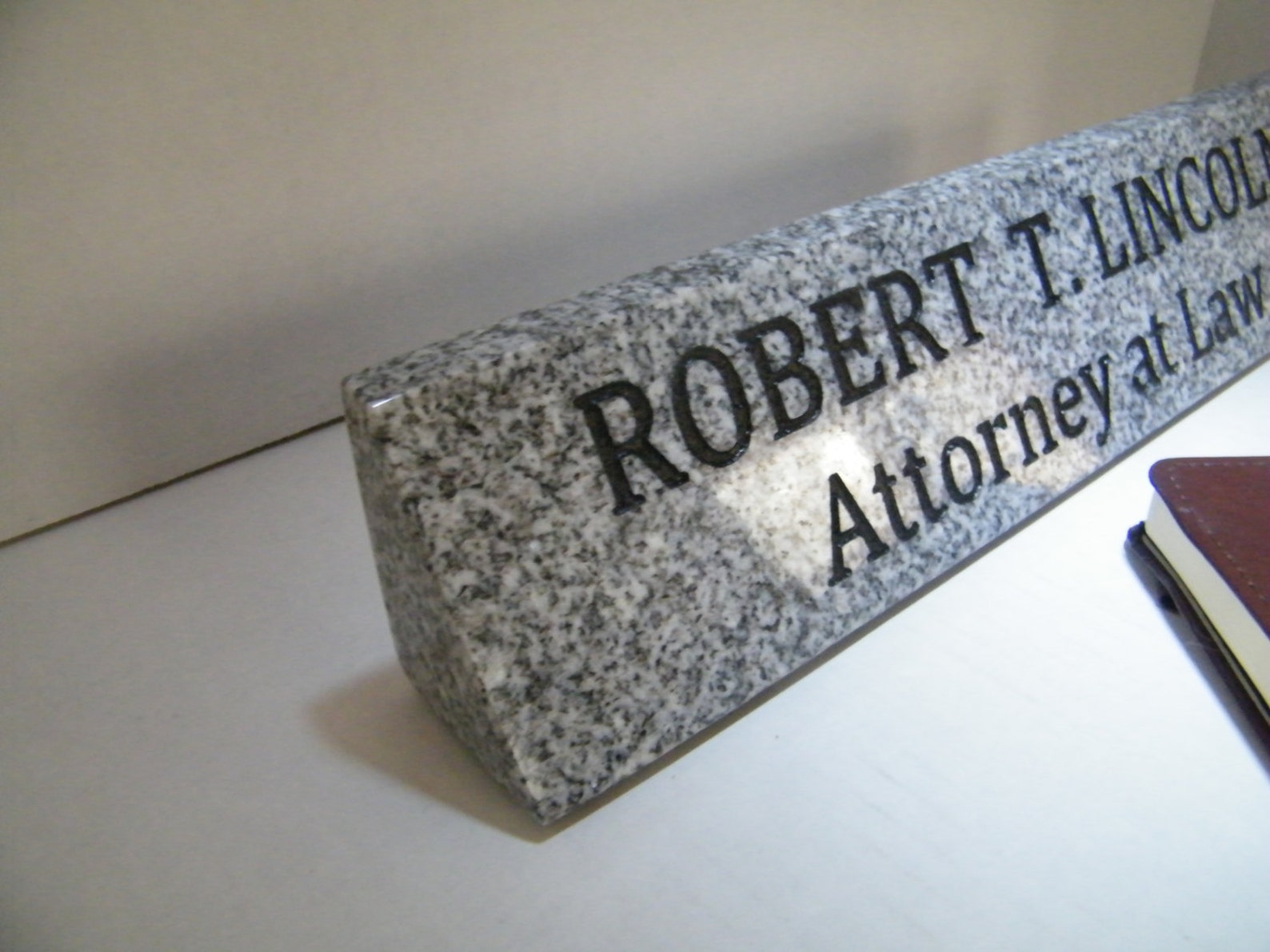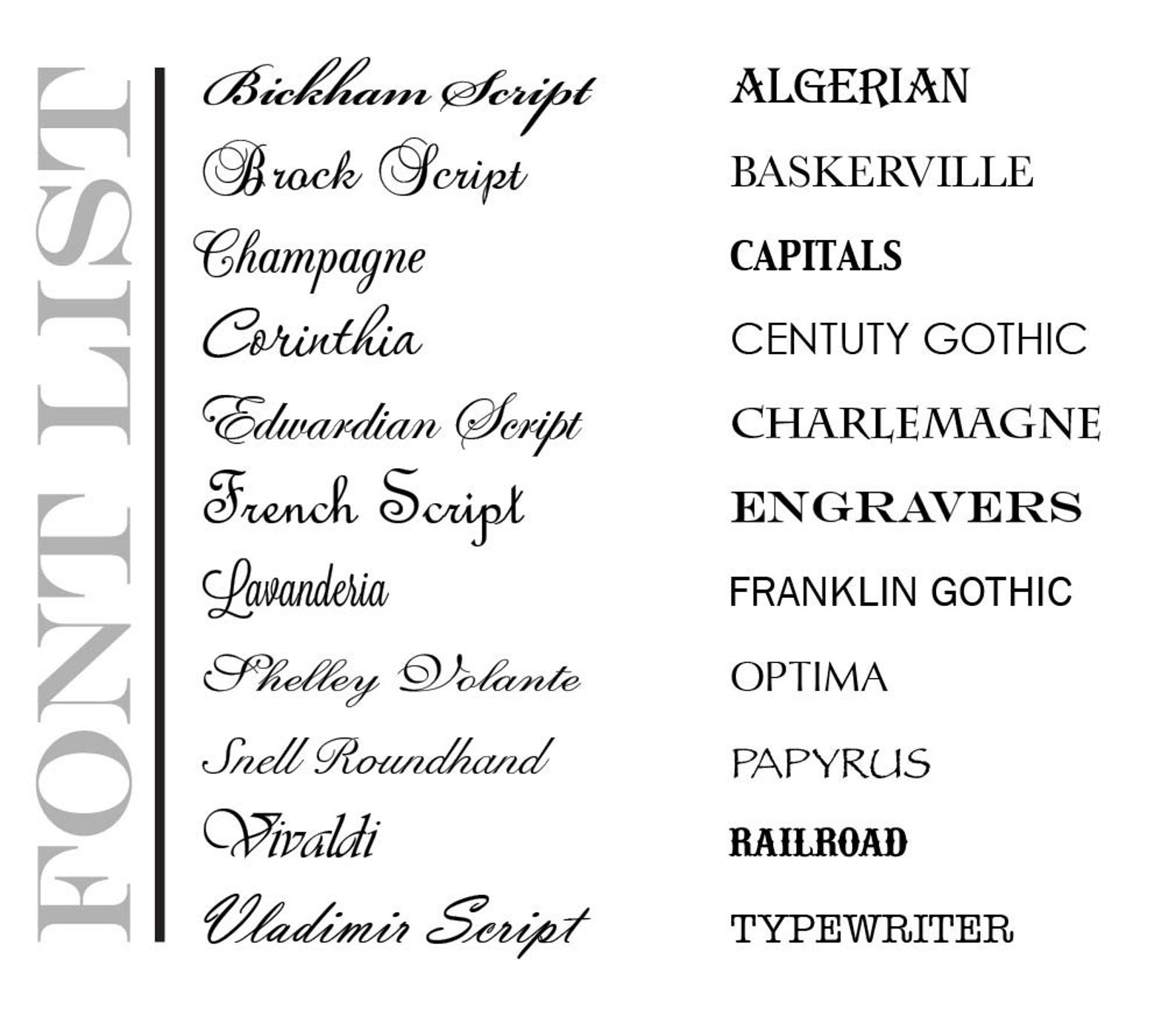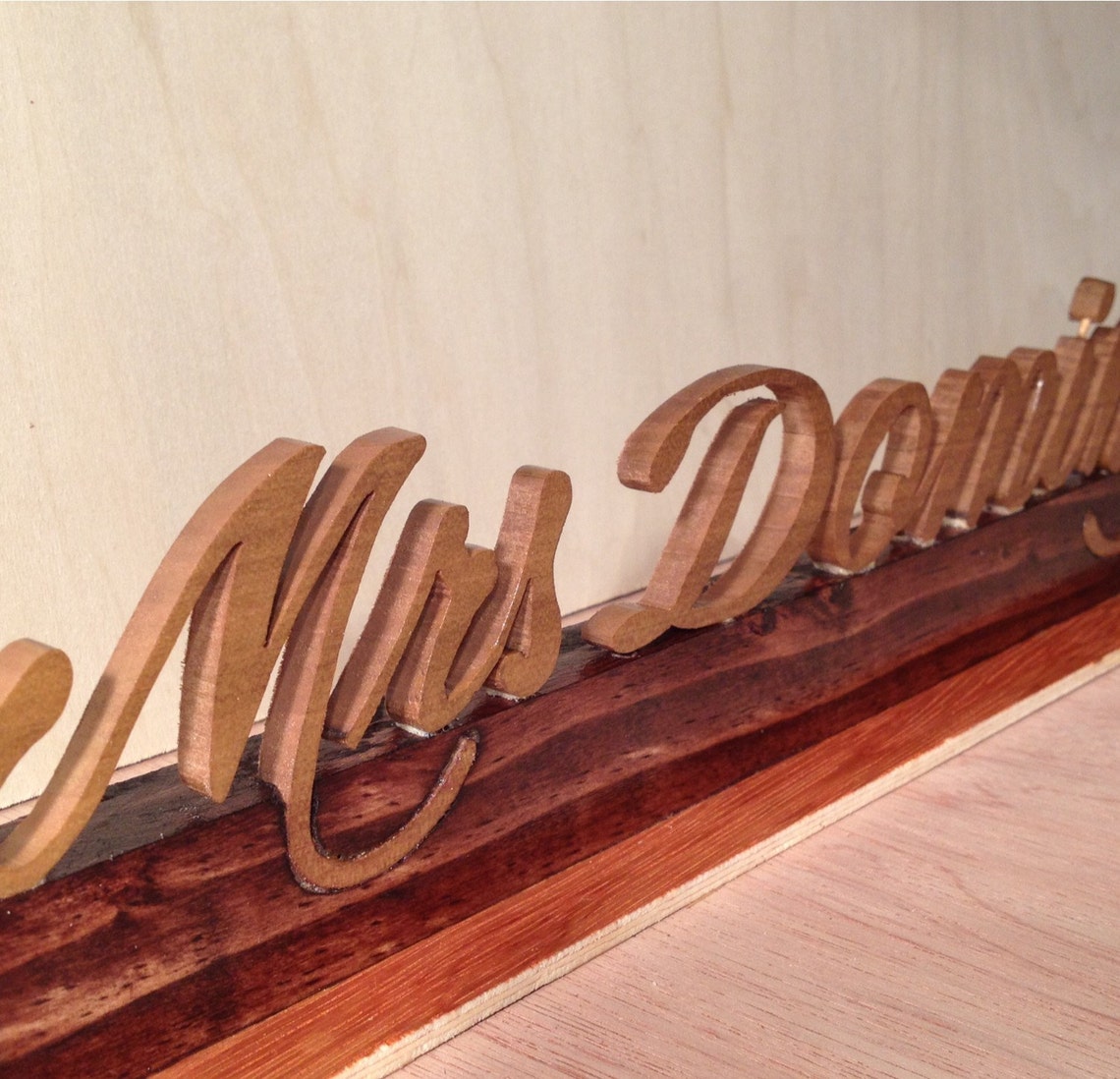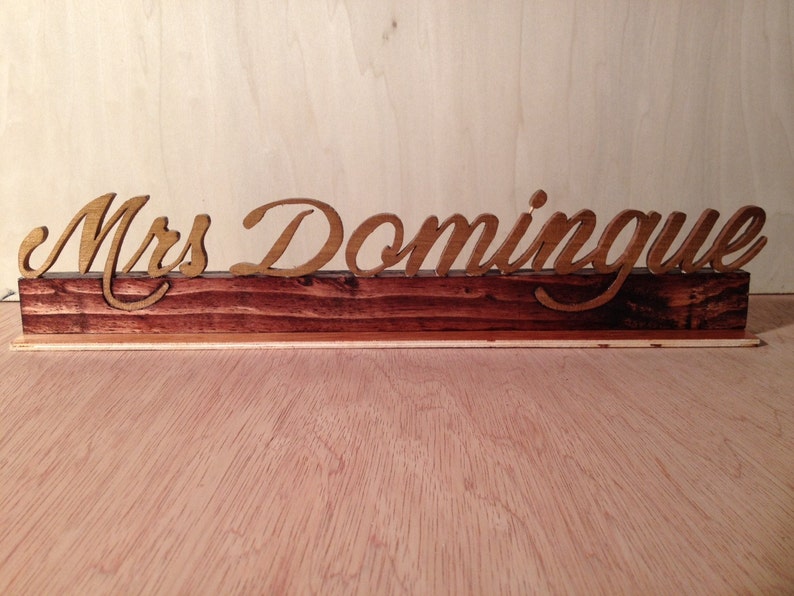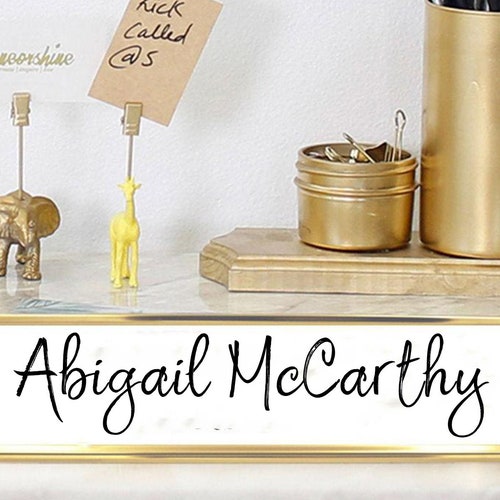
Best Font For Desk Name Plate . Discover a world of captivating typography for your creative projects. Unleash your design potential today! You also want to pick a color that contrasts nicely with the conference badge's colored or white background. Explore nameplate fonts at myfonts. Hundreds of fonts used by the sign maker for all the house signs, name plates, plaques, memorials and business signage. Collection of fonts for name plates. Upload join free fonts styles collections font generator ( ʖ ) designers stuff new. Your nameplate is the first thing people see when they come to your house, and it should speak volumes about you and your family. A nameplate with a decorative font can add a touch of elegance to your apartment entrance. Modern, tradition, script, fancy fonts. It’s more achievable by using a bold font and by avoiding cursive or italic.
Your nameplate is the first thing people see when they come to your house, and it should speak volumes about you and your family. Hundreds of fonts used by the sign maker for all the house signs, name plates, plaques, memorials and business signage. Discover a world of captivating typography for your creative projects. It’s more achievable by using a bold font and by avoiding cursive or italic. Unleash your design potential today! A nameplate with a decorative font can add a touch of elegance to your apartment entrance. Collection of fonts for name plates. Modern, tradition, script, fancy fonts. Upload join free fonts styles collections font generator ( ʖ ) designers stuff new. You also want to pick a color that contrasts nicely with the conference badge's colored or white background.
Best Font For Desk Name Plate Collection of fonts for name plates. Your nameplate is the first thing people see when they come to your house, and it should speak volumes about you and your family. Hundreds of fonts used by the sign maker for all the house signs, name plates, plaques, memorials and business signage. It’s more achievable by using a bold font and by avoiding cursive or italic. Unleash your design potential today! Discover a world of captivating typography for your creative projects. Explore nameplate fonts at myfonts. Collection of fonts for name plates. You also want to pick a color that contrasts nicely with the conference badge's colored or white background. A nameplate with a decorative font can add a touch of elegance to your apartment entrance. Modern, tradition, script, fancy fonts. Upload join free fonts styles collections font generator ( ʖ ) designers stuff new.
Advocate Name Plate Corporate Office Name Plates Royal Gifts Best Font For Desk Name Plate Modern, tradition, script, fancy fonts. You also want to pick a color that contrasts nicely with the conference badge's colored or white background. Explore nameplate fonts at myfonts. Your nameplate is the first thing people see when they come to your house, and it should speak volumes about you and your family. Collection of fonts for name plates. Unleash your. Best Font For Desk Name Plate.
Modern Custom Engraved Solid Wood Desk Nameplate Desk Plaque Etsy UK Desk name plates Best Font For Desk Name Plate Hundreds of fonts used by the sign maker for all the house signs, name plates, plaques, memorials and business signage. A nameplate with a decorative font can add a touch of elegance to your apartment entrance. Unleash your design potential today! Upload join free fonts styles collections font generator ( ʖ ) designers stuff new. Explore nameplate fonts at myfonts.. Best Font For Desk Name Plate.
Classy desk name plate featuring a printed faux white marble background and your name in an Best Font For Desk Name Plate You also want to pick a color that contrasts nicely with the conference badge's colored or white background. A nameplate with a decorative font can add a touch of elegance to your apartment entrance. Your nameplate is the first thing people see when they come to your house, and it should speak volumes about you and your family. Upload join. Best Font For Desk Name Plate.
Desk Name Plate Custom Name Sign Personalized Wood Desk Etsy in 2021 Desk name plates Best Font For Desk Name Plate Your nameplate is the first thing people see when they come to your house, and it should speak volumes about you and your family. Discover a world of captivating typography for your creative projects. Collection of fonts for name plates. A nameplate with a decorative font can add a touch of elegance to your apartment entrance. Explore nameplate fonts at. Best Font For Desk Name Plate.
Printed Desk Name Plate Corporate Office Nameplates Royal Gifts Best Font For Desk Name Plate Explore nameplate fonts at myfonts. You also want to pick a color that contrasts nicely with the conference badge's colored or white background. Collection of fonts for name plates. Hundreds of fonts used by the sign maker for all the house signs, name plates, plaques, memorials and business signage. Unleash your design potential today! Upload join free fonts styles collections. Best Font For Desk Name Plate.
Custom Desk Name Plate Script Name Plate Wood Name Plate Etsy Best Font For Desk Name Plate It’s more achievable by using a bold font and by avoiding cursive or italic. Collection of fonts for name plates. You also want to pick a color that contrasts nicely with the conference badge's colored or white background. A nameplate with a decorative font can add a touch of elegance to your apartment entrance. Unleash your design potential today! Hundreds. Best Font For Desk Name Plate.
Modern Name Plate for Office Desk Name Plate Employee Gift Etsy Best Font For Desk Name Plate Modern, tradition, script, fancy fonts. A nameplate with a decorative font can add a touch of elegance to your apartment entrance. It’s more achievable by using a bold font and by avoiding cursive or italic. Unleash your design potential today! Your nameplate is the first thing people see when they come to your house, and it should speak volumes about. Best Font For Desk Name Plate.
Desk Nameplate Custom Desk Name Plate Custom Granite Name Etsy Best Font For Desk Name Plate A nameplate with a decorative font can add a touch of elegance to your apartment entrance. Your nameplate is the first thing people see when they come to your house, and it should speak volumes about you and your family. Unleash your design potential today! It’s more achievable by using a bold font and by avoiding cursive or italic. You. Best Font For Desk Name Plate.